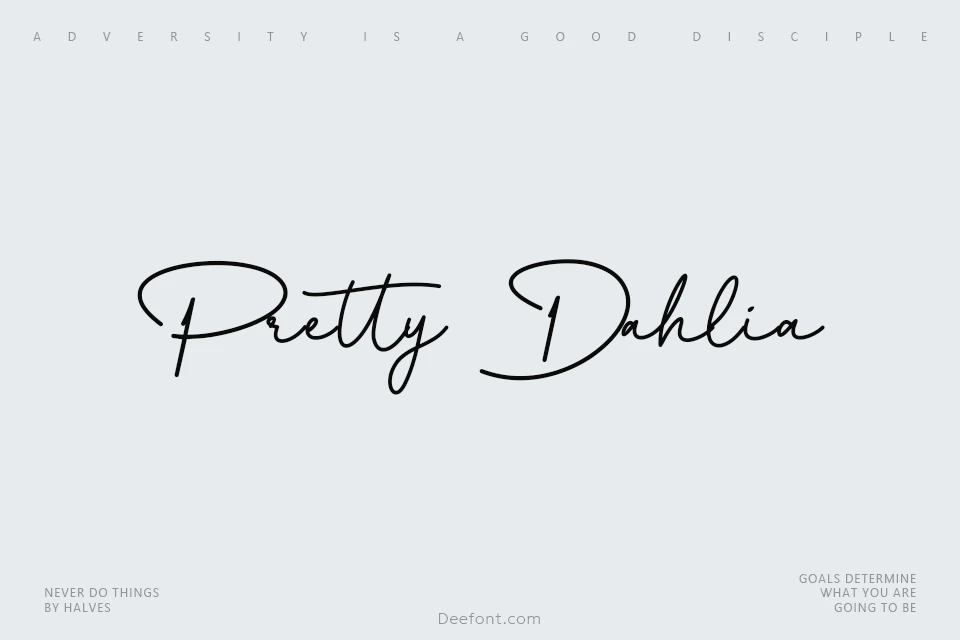
Pretty Dahlia Font
Pretty Dahlia Font is an elegant monoline handwritten script font that exudes natural charm and delicate beauty. Created by Sron Studio, this versatile typeface features flowing curves and graceful connections that mimic authentic handwriting with sophisticated flair. Its thin, consistent stroke weight gives designs a light, airy feel perfect for wedding invitations, branding projects, social media graphics, and product packaging. The font’s organic style pairs beautifully with floral imagery and nature-inspired designs, making it ideal for projects that require a feminine, artistic touch with professional quality.